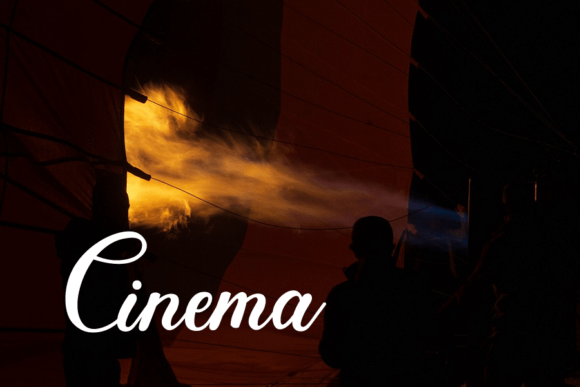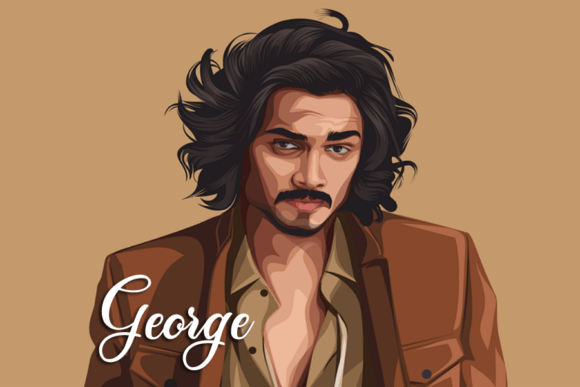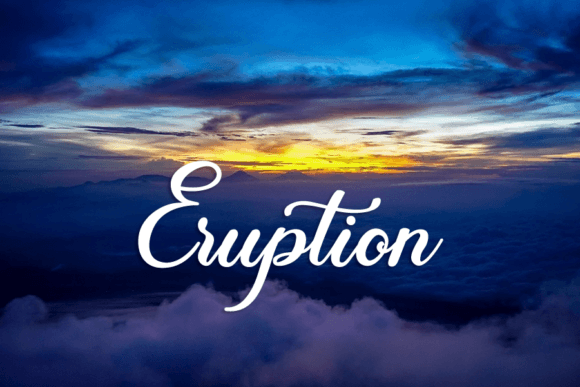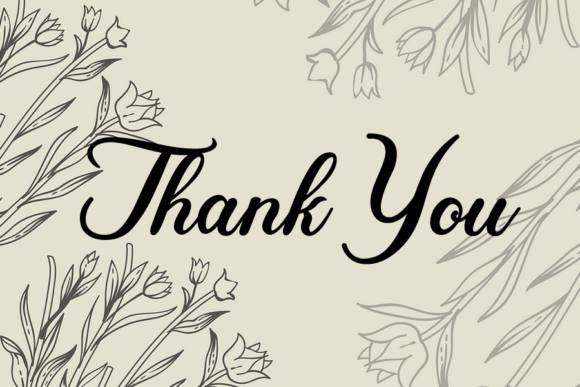
The Delight Font: Elevate Your Designs with Elegance and Sophistication
I’ll never forget the time I was working on a logo design project for a high-end boutique client. I had spent hours brainstorming ideas, sketching concepts, and refining my design. But as I began to digitize my work, I realized that I was struggling to find the perfect font to complement my design. The client wanted something elegant, sophisticated, and eye-catching. That’s when I stumbled upon the Delight font, a fancy, professional, and cursive script font that completely transformed my design.
An Honest Review of Delight Font
As a designer, I’m always on the lookout for fonts that can help me create stunning visuals. Here’s my honest review of the Delight font:
- ✨ Elegant and sophisticated design that’s perfect for high-end projects
- 💫 Beautifully crafted to add a touch of luxury to any design
- 🎨 Versatile and can be used for a wide range of projects, from logos to merchandise
While the Delight font is an excellent choice for many projects, there are a few things to keep in mind:
- 🤔 May not be the best choice for body text, as it’s a script font and can be difficult to read in large blocks
- ⚠️ Some characters may not work well in all contexts, so be sure to test the font thoroughly
The Story Behind Delight Font
The Delight font was designed by a team of skilled typographers who wanted to create a font that would add a touch of elegance and sophistication to any design. The font was inspired by traditional calligraphy and handwriting, with a focus on creating a beautiful and legible script font. The designers behind Delight font aimed to create a font that would be perfect for high-end projects, such as luxury branding, packaging, and advertising.
Q: What is the Delight font best used for?
A: The Delight font is best used for high-end projects, such as luxury branding, packaging, and advertising. It’s also perfect for logos, merchandise, and any design project that requires an elegant and sophisticated touch.
Q: Is the Delight font easy to read?
A: Yes, the Delight font is highly legible, even at small sizes. However, it’s a script font, so it may not be the best choice for body text or large blocks of text.
Q: Is the Delight font available in different styles?
A: Yes, the Delight font comes in a range of styles, including regular, bold, and italic. You can also access OpenType features, such as ligatures and stylistic alternates, to add more personality to your text.